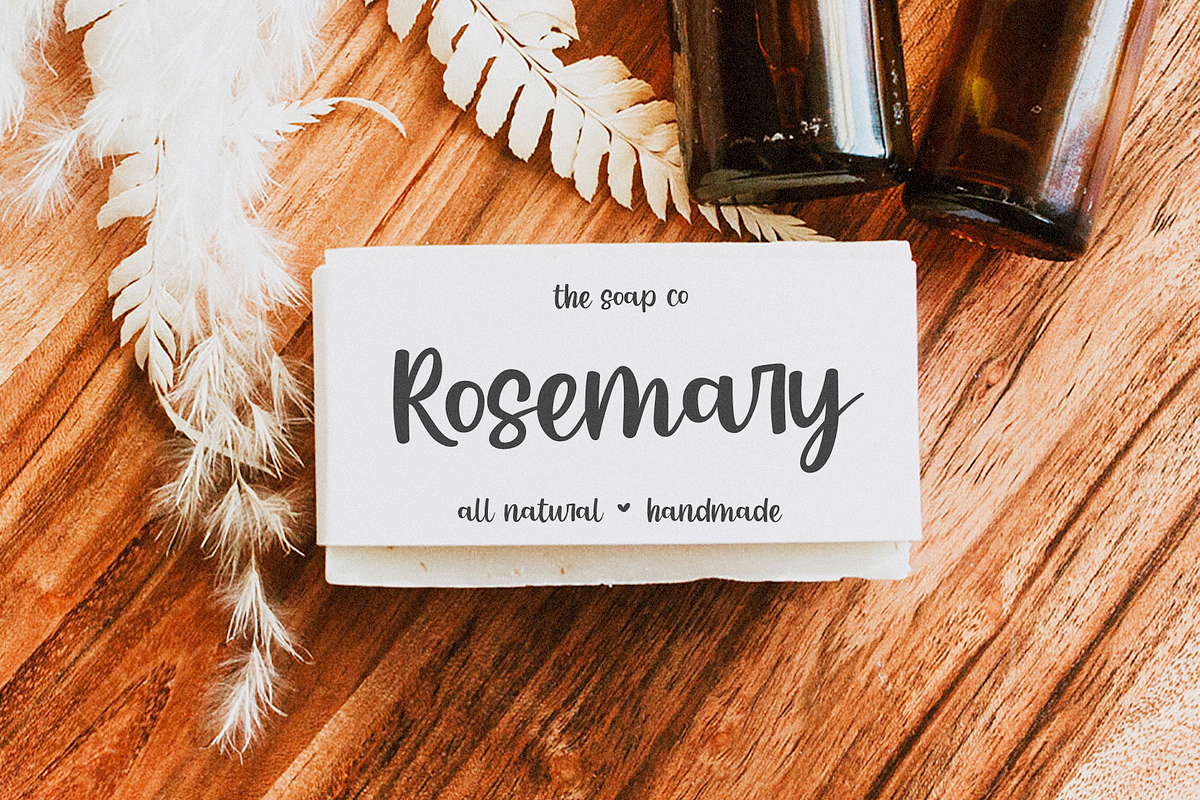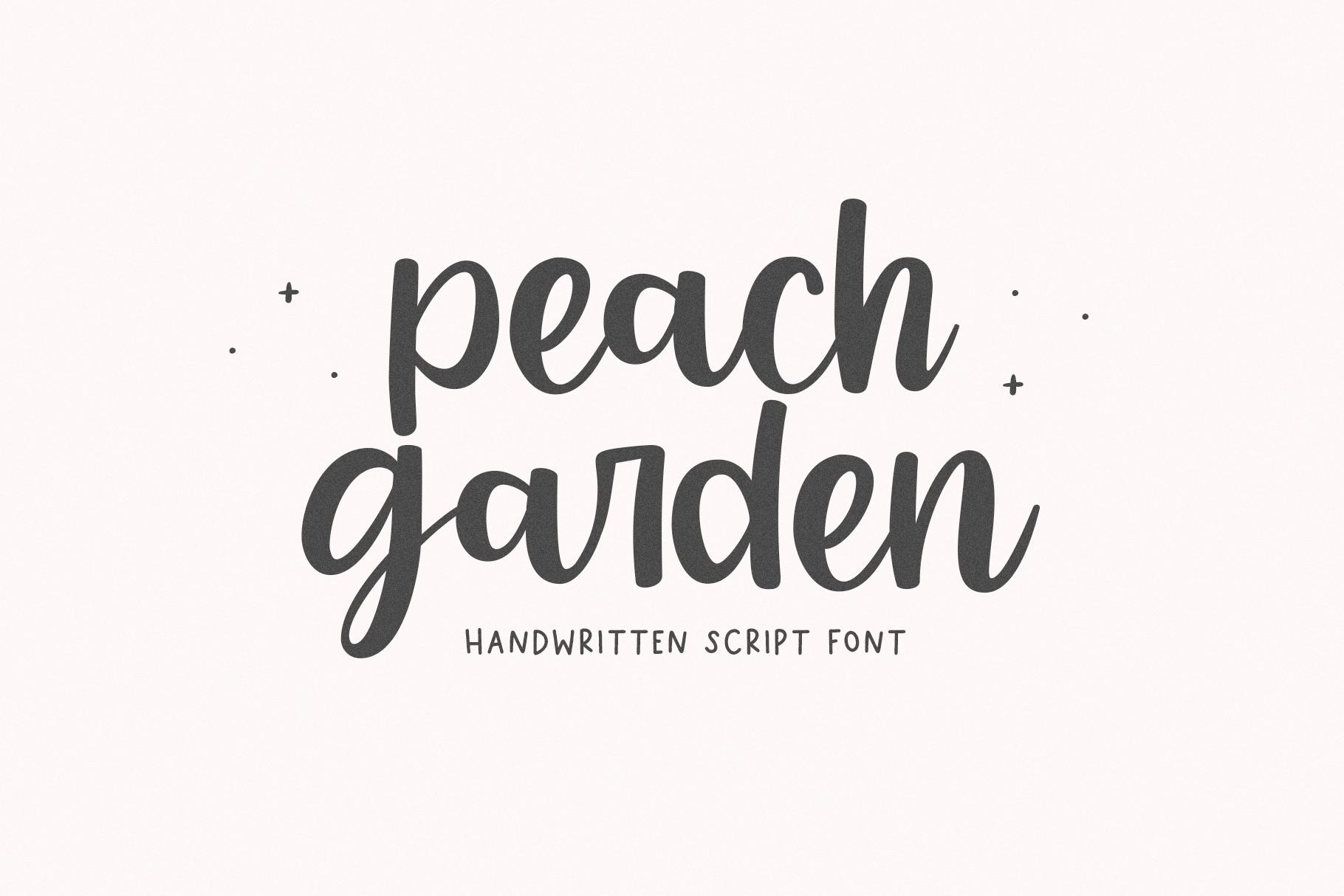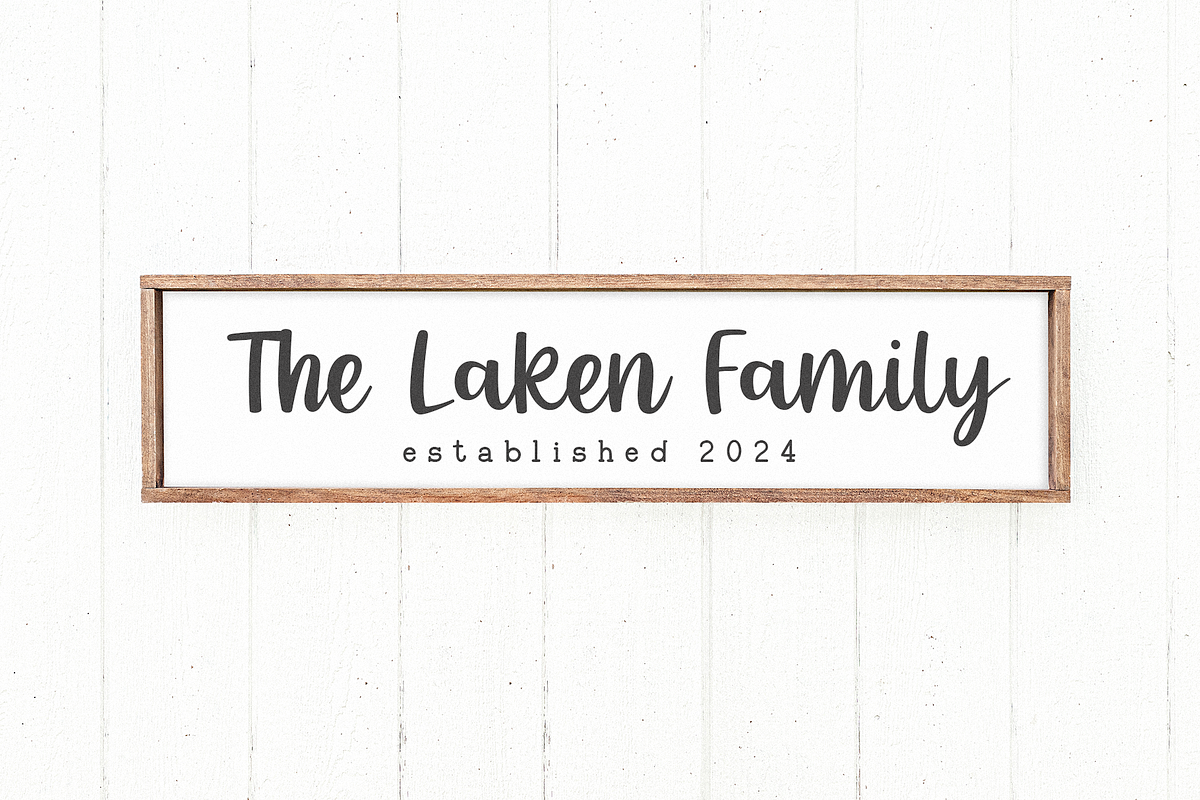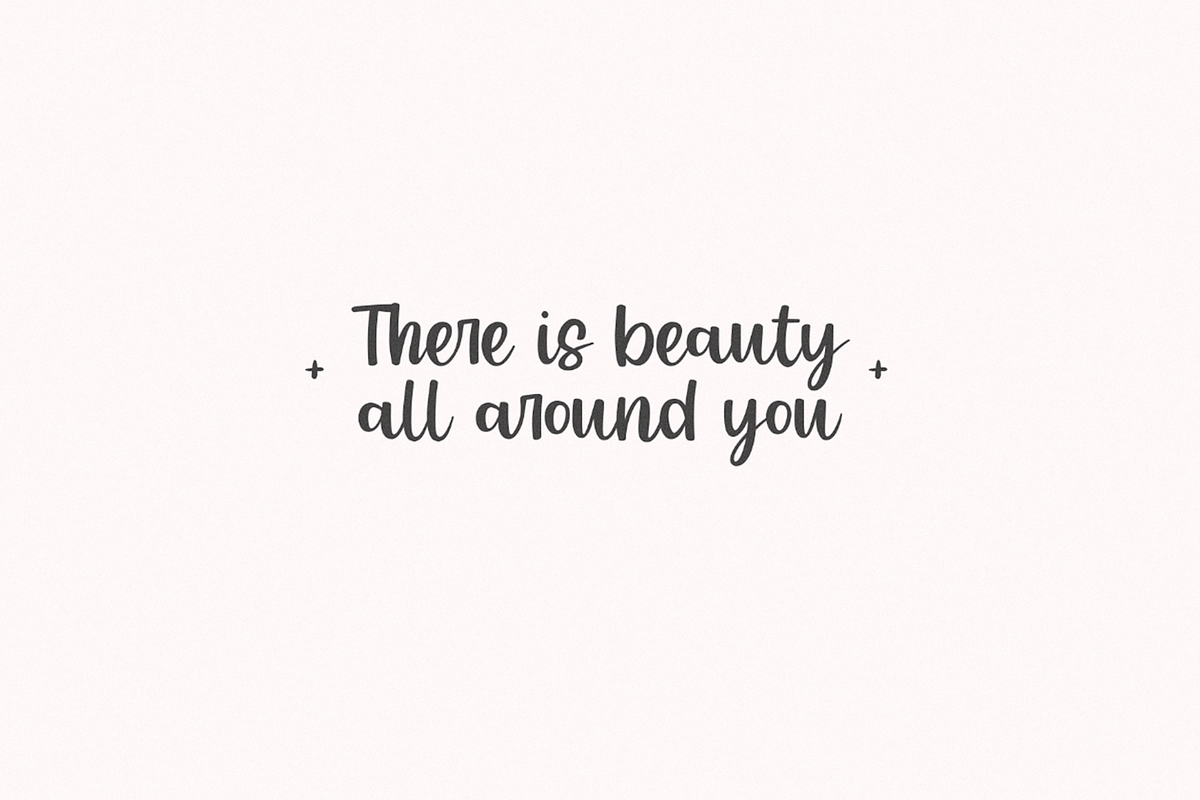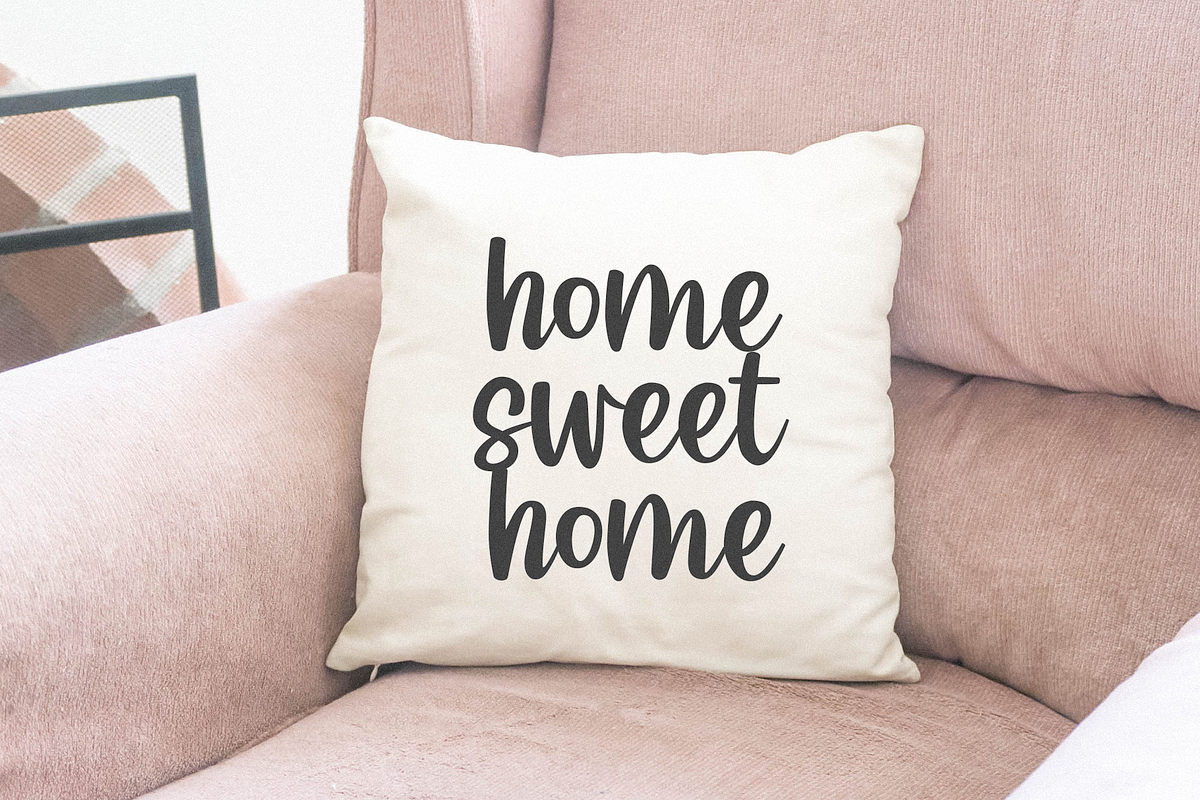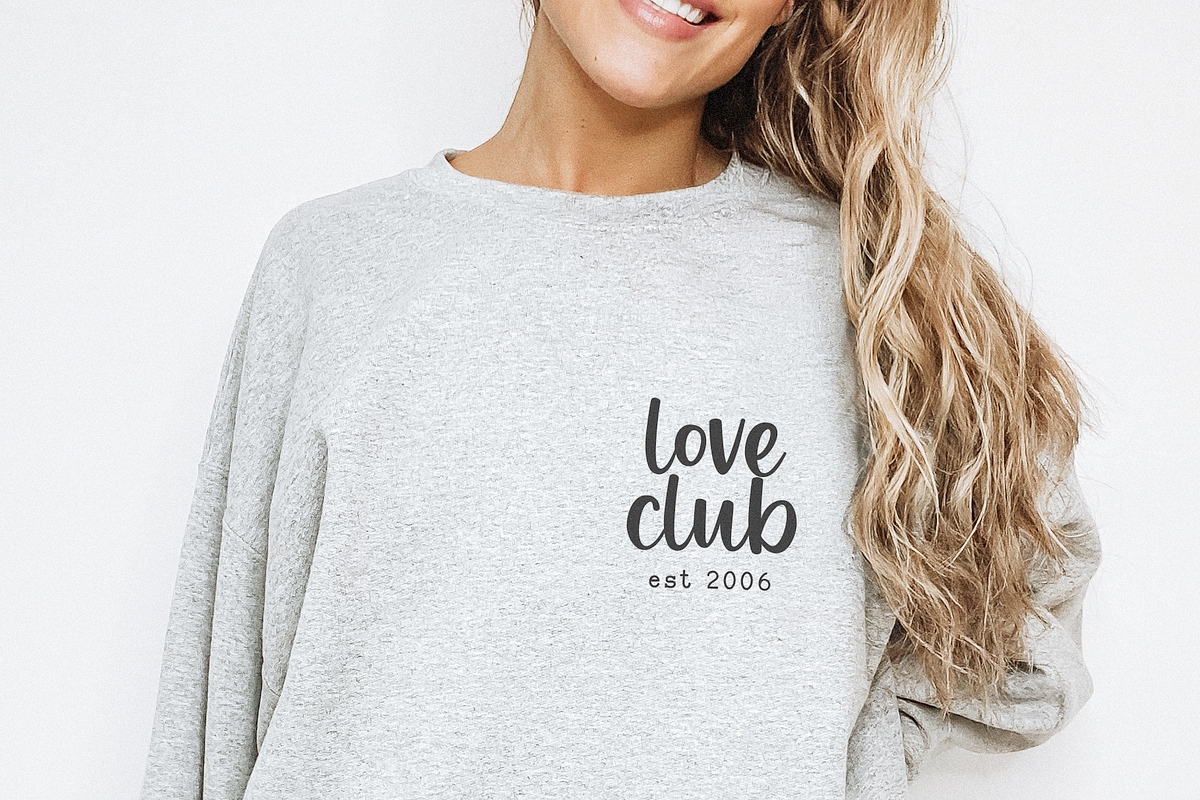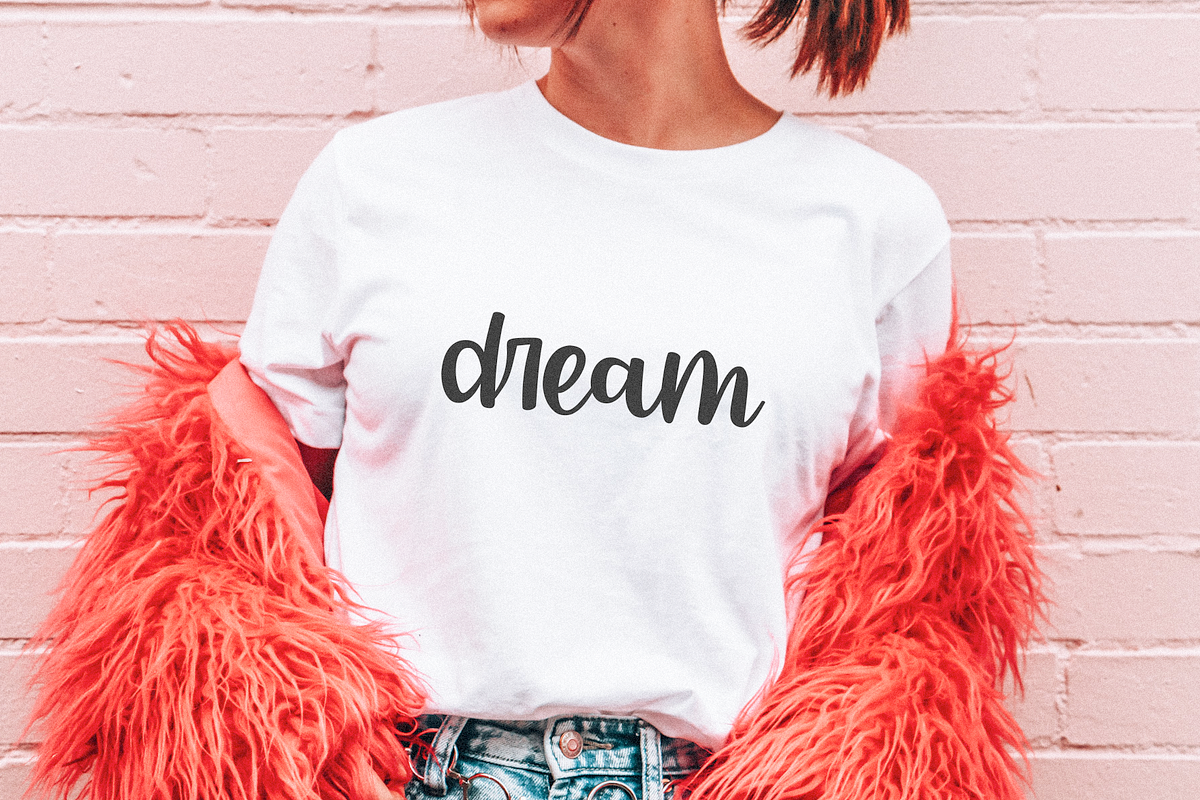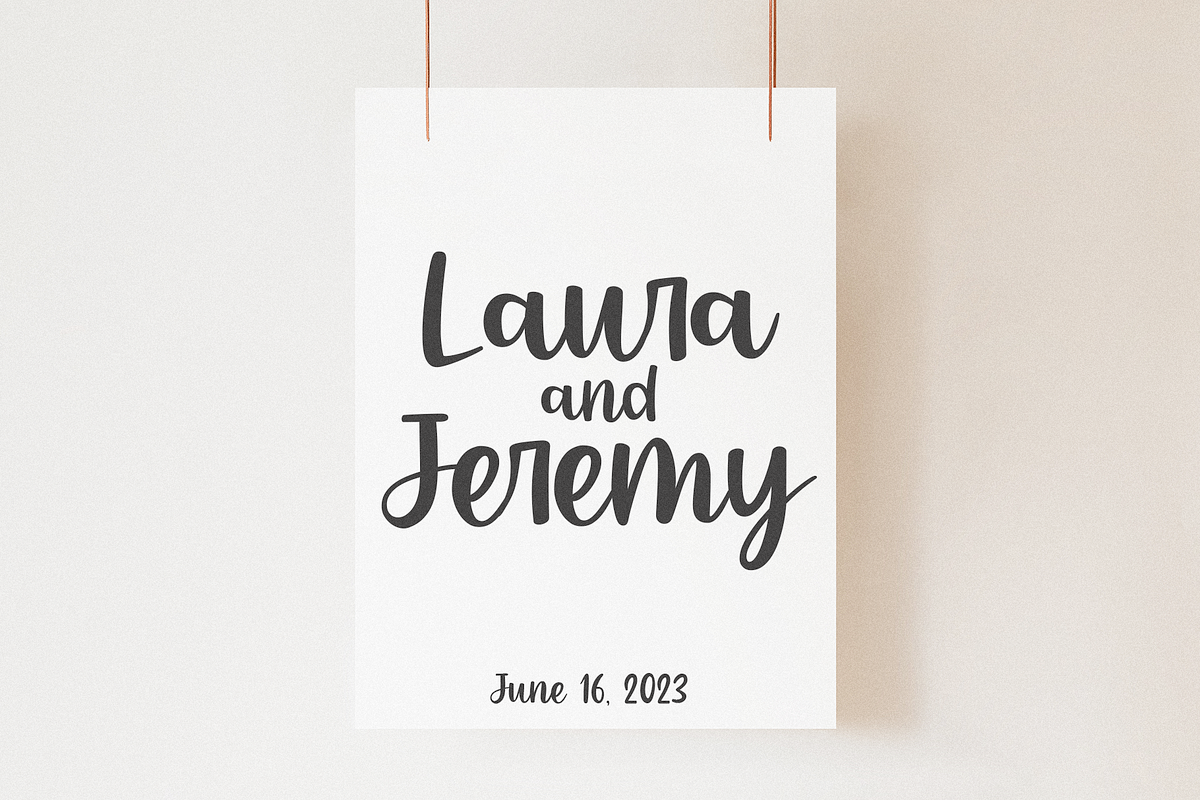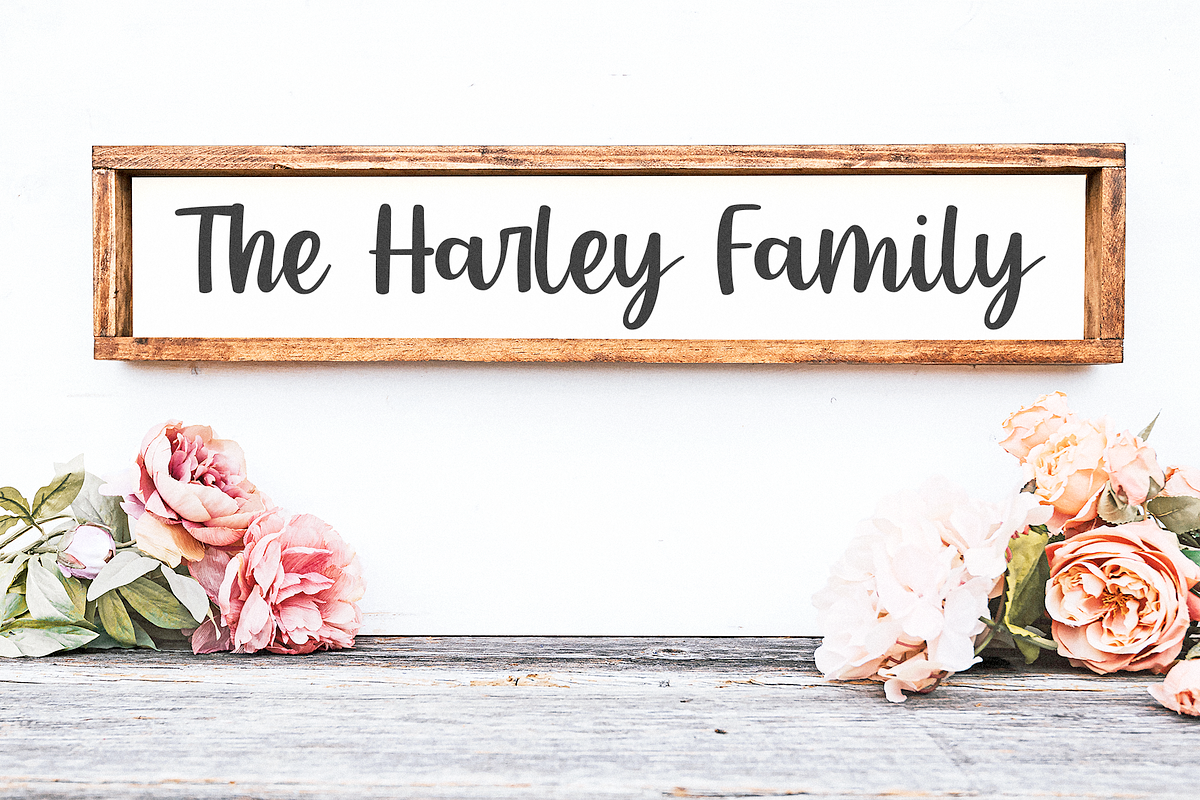
Peach Garden | Script Font
Peach Garden is a modern script font.
This font is perfect for farmhouse designs, svg designs, wedding decor, shirts, logos, mugs and more!